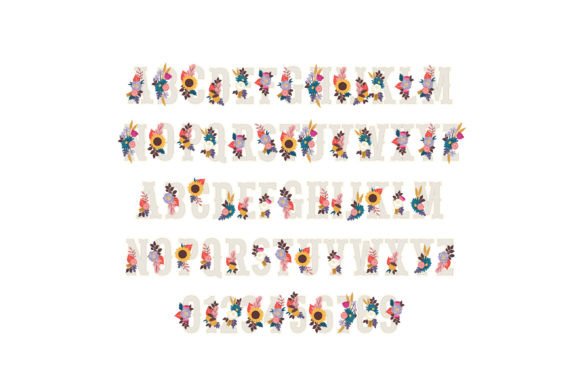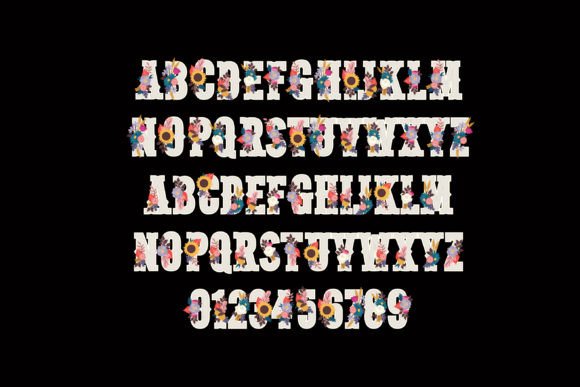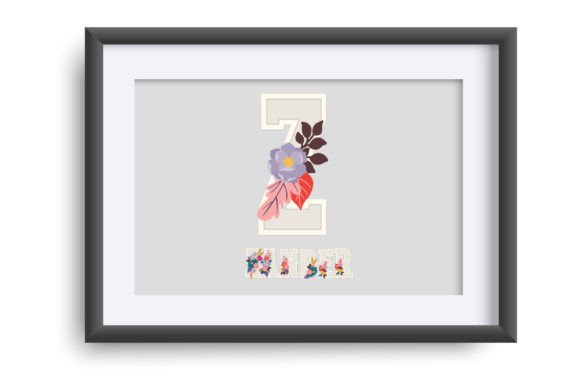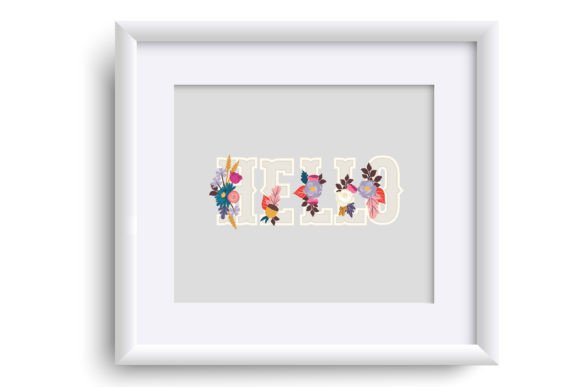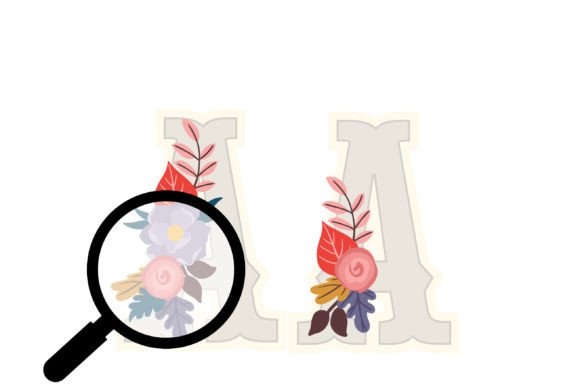
Introducing Beautiful Blessings Font: Elevate Your Designs with a Stunning Thanksgiving-Inspired Typeface
Are you a designer or crafter looking for a unique and eye-catching font to add a personal touch to your projects? Look no further than the Beautiful Blessings Font, a gorgeous full-color typeface that combines a classic serif font with a vibrant Thanksgiving color palette and delicate florals. In this article, we’ll explore the features and benefits of this stunning font, and show you how to make the most of its capabilities.
What is Beautiful Blessings Font?
Key Features of Beautiful Blessings Font
- Full-color SVG font: This font features a range of colors and styles, allowing you to create anything from simple text logos to complex illustrations.
- Thanksgiving color palette: The font’s color palette is inspired by the warm, rich tones of Thanksgiving, making it perfect for autumn-themed designs.
- Delicate florals: The font features beautiful, intricate florals that add a touch of elegance and sophistication to your designs.
- Serif font style: The font’s classic serif style makes it suitable for a wide range of design projects, from formal invitations to social media graphics.
Benefits of Using Beautiful Blessings Font
So why choose Beautiful Blessings Font for your design projects? Here are just a few benefits:
- Add a personal touch: With its unique color palette and delicate florals, Beautiful Blessings Font is the perfect way to add a personal touch to your designs.
- Stand out from the crowd: This font is sure to make your designs stand out from the crowd, whether you’re creating social media graphics, invitations, or marketing materials.
- Easy to use: Despite its advanced features, Beautiful Blessings Font is easy to use, even for designers who are new to working with full-color SVG fonts.
Beautiful Blessings Font is a stunning full-color typeface that is sure to elevate your designs to the next level. With its unique Thanksgiving color palette, delicate florals, and classic serif style, this font is perfect for designers and crafters who want to add a personal touch to their projects. Whether you’re creating social media graphics, invitations, or marketing materials, Beautiful Blessings Font is a versatile and easy-to-use font that is sure to impress.